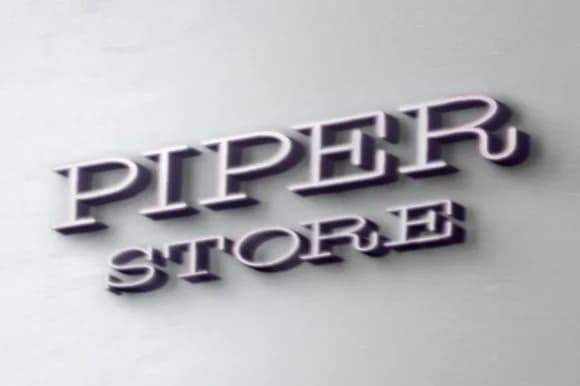
1 / 7About The Isabella Font
The Isabella from NuchType strikes that rare balance between structured slab serif precision and something distinctly more personal. The letterforms carry weight without heaviness, mixing geometric clarity with subtle handcrafted character that feels drawn rather than engineered. This duality makes it work brilliantly as both a contemporary display font and something with vintage sensibility.
The font shines in applications where refined typographic details matter. Fashion brand identity systems, editorial magazine headers, luxury cosmetics packaging, and wedding invitation suites all benefit from its confident presence and visual weight. You could deploy it across boutique skincare labels, vintage-inspired book covers, or indie coffee shop signage where you want something stronger than a delicate serif but warmer than pure geometry. Instagram story graphics and printed collateral both showcase its range.
Built with attention to finesse, The Isabella performs well at large display sizes and remains surprisingly legible when scaled smaller. It works best for designers and small business owners building brands that feel considered and intentional. If you're looking for a display face that bridges contemporary and vintage without feeling retro or derivative, this is worth exploring. Get it on Creative Fabrica and add it to your active toolkit.
- Sturdy, Confident, Modern
The Isabella Font is a slab serif font that shines as a display or heading face. Pair it with a clean sans-serif or serif font for body text β the contrast creates a clear hierarchy while the two styles stay balanced and easy to read.
The Isabella Font
by NuchType